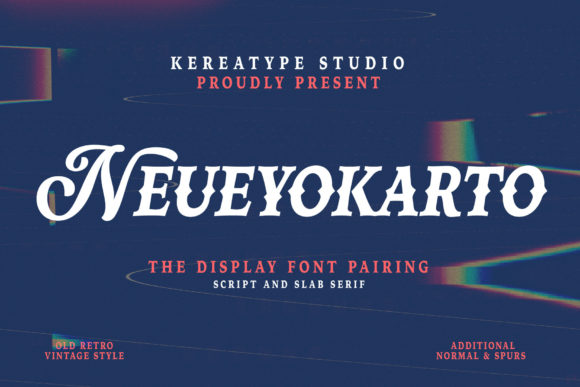
Introducing the Neue Yokarto Font Family: A Typographical Journey Through Time
In the realm of typography, where letters dance and stories unfold, the Neue Yokarto Font Family emerges as a captivating duo, ready to ignite your creative spirit and transport you to a world of vintage charm. Inspired by the allure of travel and the nostalgia of bygone eras, these two display fonts, crafted with meticulous attention to detail, are poised to elevate your designs to new heights.
Neue Yokarto, a Bold Assertion of Timeless Elegance
Neue Yokarto Regular, with its bold and assertive strokes, commands attention like a confident traveler embarking on a grand adventure. Its solid structure exudes a sense of stability and strength, while its playful curves hint at a hidden allure, inviting you to explore the depths of its character. Use it as a standalone statement or pair it with its complementary font, Neue Yokarto Italic, to create a dynamic and visually striking composition.
Neue Yokarto Italic, A Graceful Dance of Sophistication
Neue Yokarto Italic, with its graceful and fluid lines, dances across the page like a seasoned explorer discovering hidden gems. Its elegant curves and delicate flourishes add a touch of femininity and charm to your designs, evoking the romance of vintage travel posters and the allure of faraway lands. Whether used alone or in conjunction with Neue Yokarto Regular, this font adds a touch of sophistication and intrigue that will leave your audience captivated.
Together, Neue Yokarto Regular and Neue Yokarto Italic form an inseparable duo, like two adventurous souls traversing the globe, each complementing the other's strengths and creating a harmonious balance. Use them to craft eye-catching headlines, captivating posters, alluring social media posts, or any project that demands a touch of vintage elegance and timeless charm.
Open the doors to your imagination and embark on a typographical voyage with the Neue Yokarto Font Family. Let these fonts be your companions as you create designs that resonate with the past while embracing the future. From travelogues and vintage-inspired branding to modern designs with a retro twist, the possibilities are endless.